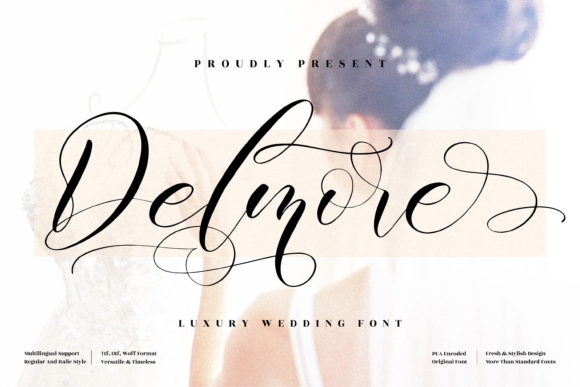
Introducing Delmore Font: Elevate Your Designs with Elegance and Sophistication
In the world of typography, a font can make or break a design. For designers and crafters seeking to add a touch of class and modernity to their work, Delmore Font is an exceptional choice. This beautiful and refined script font is designed to bring a sense of elegance and sophistication to various design projects, including logos, branding, invitations, stationery, wedding designs, social media posts, and more.
The Characteristics of Delmore Font
Delmore Font boasts a classy, elegant, and modern look that sets it apart from other script fonts. Its refined strokes and beautiful ligatures make it perfect for designs that require a high level of sophistication. Whether you’re working on a luxury brand’s logo or a wedding invitation, Delmore Font is sure to impress.
PUA Encoding for Easy Access to Glyphs and Ligatures
One of the standout features of Delmore Font is its PUA (Private Use Area) encoding. This means that users can easily access all the amazing glyphs and ligatures without any hassle. PUA encoding allows designers to unlock the full potential of the font, making it easy to incorporate special characters and swashes into their designs.
Delmore Font is incredibly versatile and can be used in a wide range of design applications. Here are some ideas to get you started:
- Logos and Branding: Create a lasting impression with a custom logo that exudes elegance and sophistication.
- Invitations and Stationery: Add a touch of refinement to your invitations, greeting cards, and stationery.
- Wedding Designs: Make your wedding designs truly unforgettable with Delmore Font’s beautiful script.
- Social Media Posts: Elevate your social media game with stylish and modern text that grabs attention.
Why Choose Delmore Font?
With so many fonts available, why choose Delmore Font? Here are a few compelling reasons:
- Unique and Distinctive: Delmore Font offers a unique and distinctive look that will set your designs apart.
- Elegant and Sophisticated: Its refined strokes and beautiful ligatures make it perfect for designs that require a high level of sophistication.
- Easy to Use: With PUA encoding, accessing glyphs and ligatures is a breeze.
- Versatile: Delmore Font can be used in a wide range of design applications.
Tips for Using Delmore Font
To get the most out of Delmore Font, here are a few tips:
- Experiment with Ligatures: Delmore Font’s ligatures are one of its standout features. Experiment with different combinations to add visual interest to your designs.
- Play with Font Sizes: Delmore Font looks great in a variety of font sizes. Experiment with different sizes to create visual hierarchy in your designs.
- Pair with Other Fonts: Delmore Font pairs well with other fonts. Experiment with different pairings to create a unique look.
Delmore Font is a beautiful and refined script font that offers a classy, elegant, and modern look. With its PUA encoding, versatile design applications, and ease of use, it’s an excellent choice for designers and crafters seeking to elevate their designs. Whether you’re working on a logo, invitation, or social media post, Delmore Font is sure to impress.